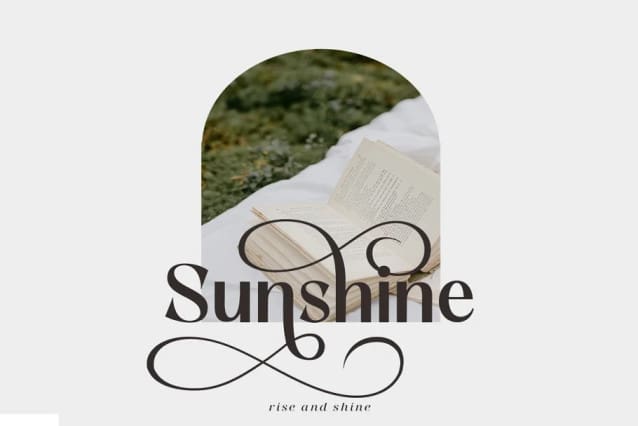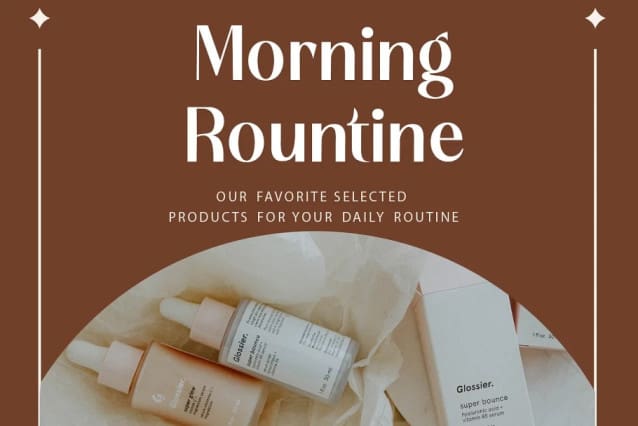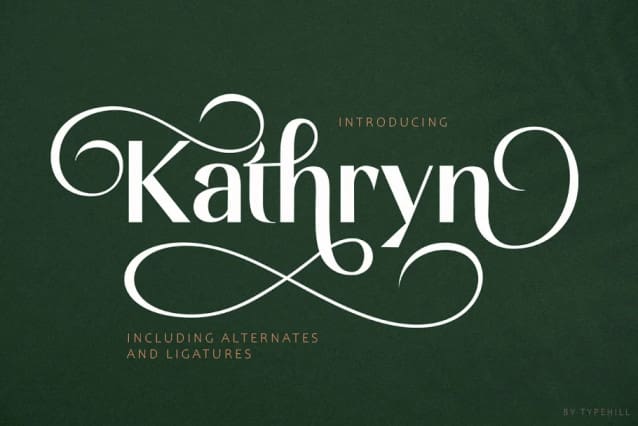
Kathryn Font
Kathryn Font attracts a typeface that is smooth, clean, unique, elegant, modern, feminine, sensual, glamorous, simple and very easy to read. Classic style is very suitable to be applied in various formal forms such as invitations, labels, menus, logos, fashion, make up, stationery, letterpress, romantic novels, magazines, books, greeting/wedding cards, packaging, labels.
Kathryn has alternative, Ligature and multilingual support.